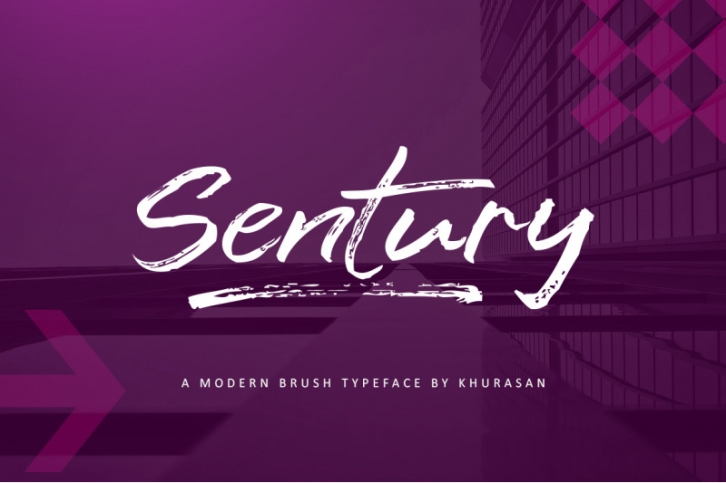
The Sentury is a fresh handwritten script font, elegant and modern feel character set. The Sentury font includes a full set capital and lowercase letters, as well as multi-lingual support, swashes, numerals, & punctuation.